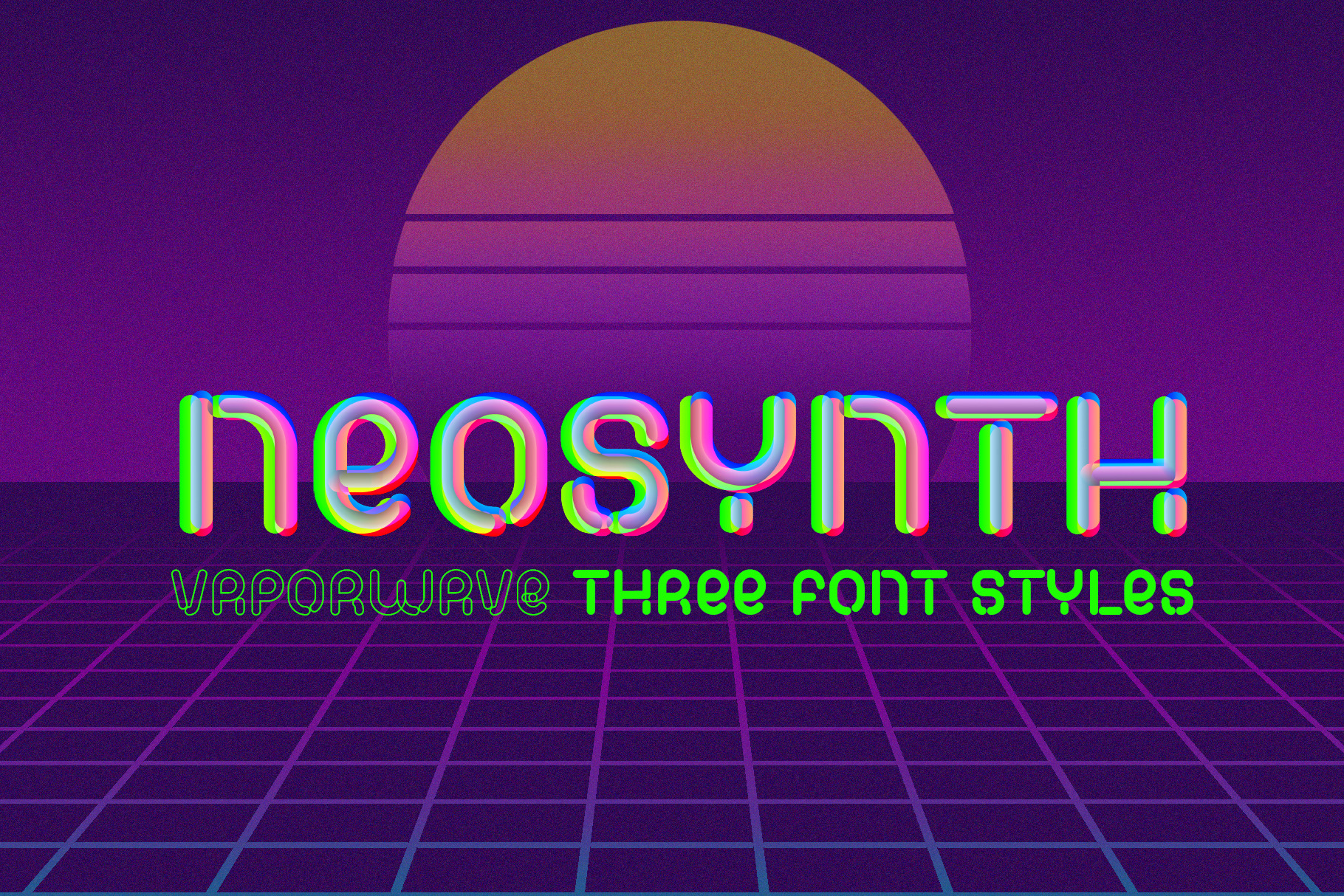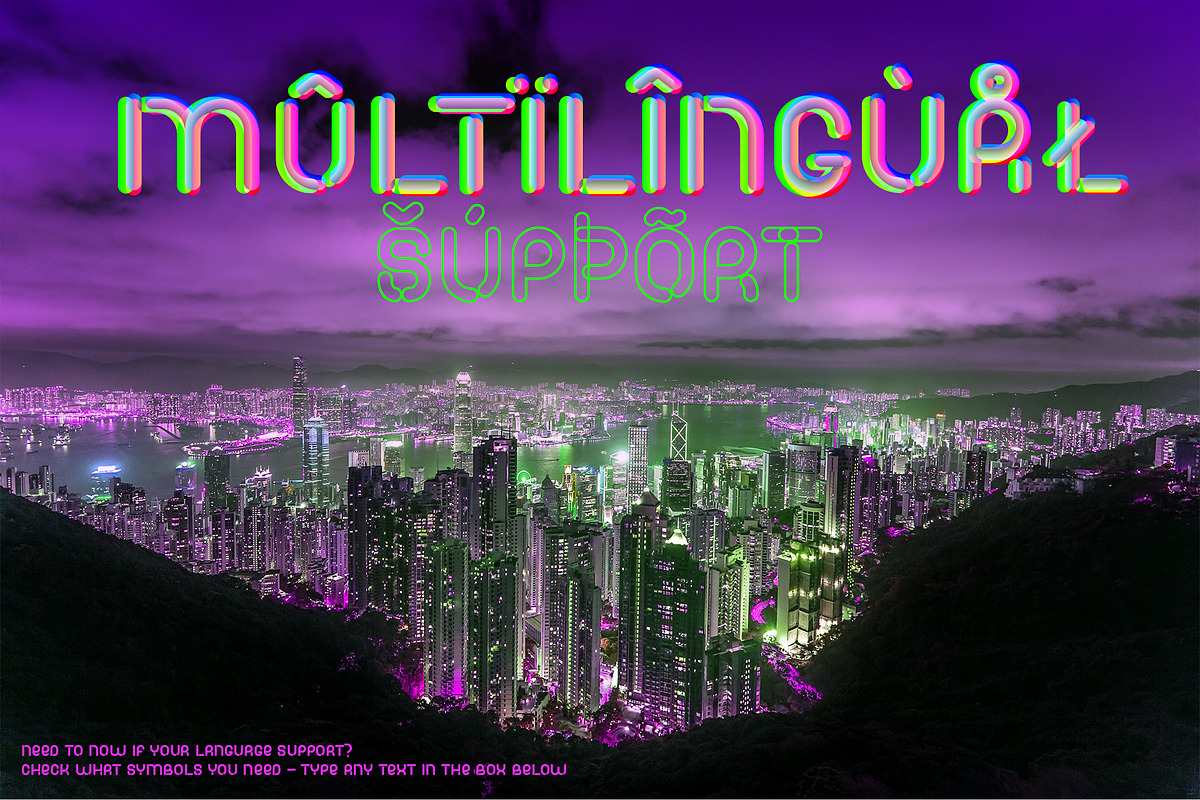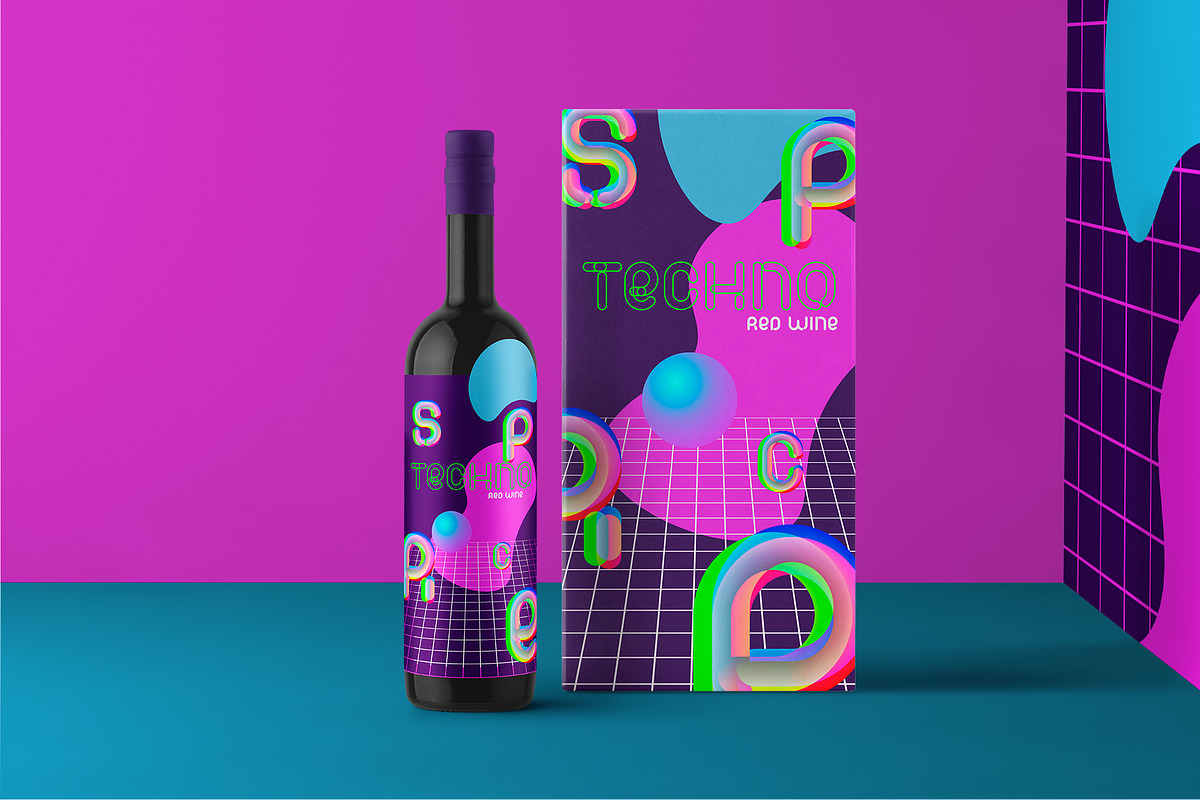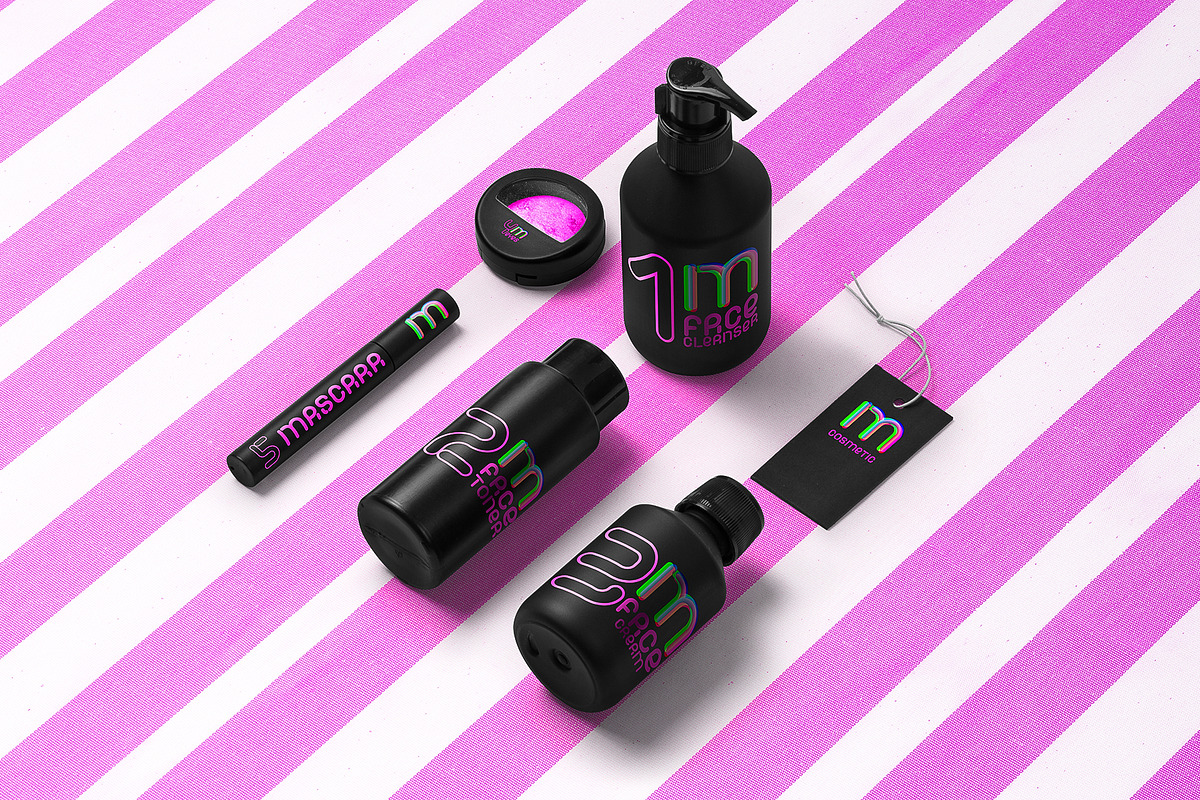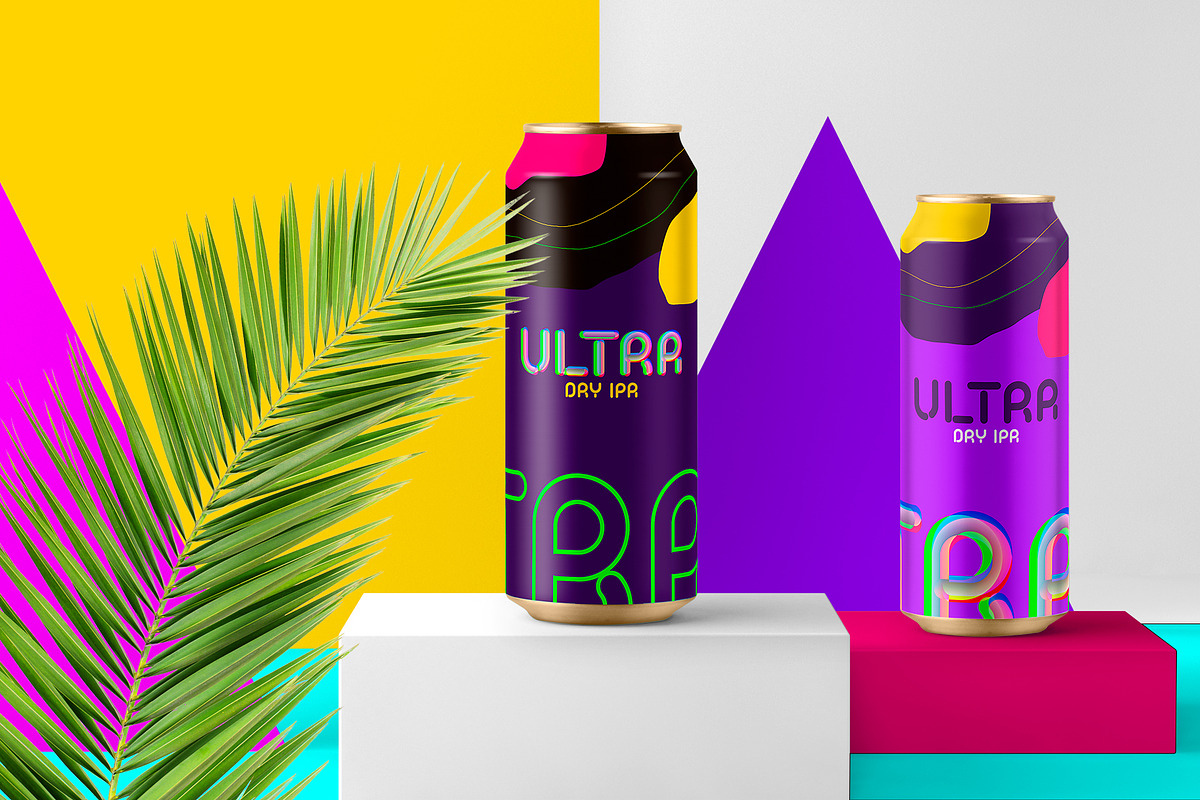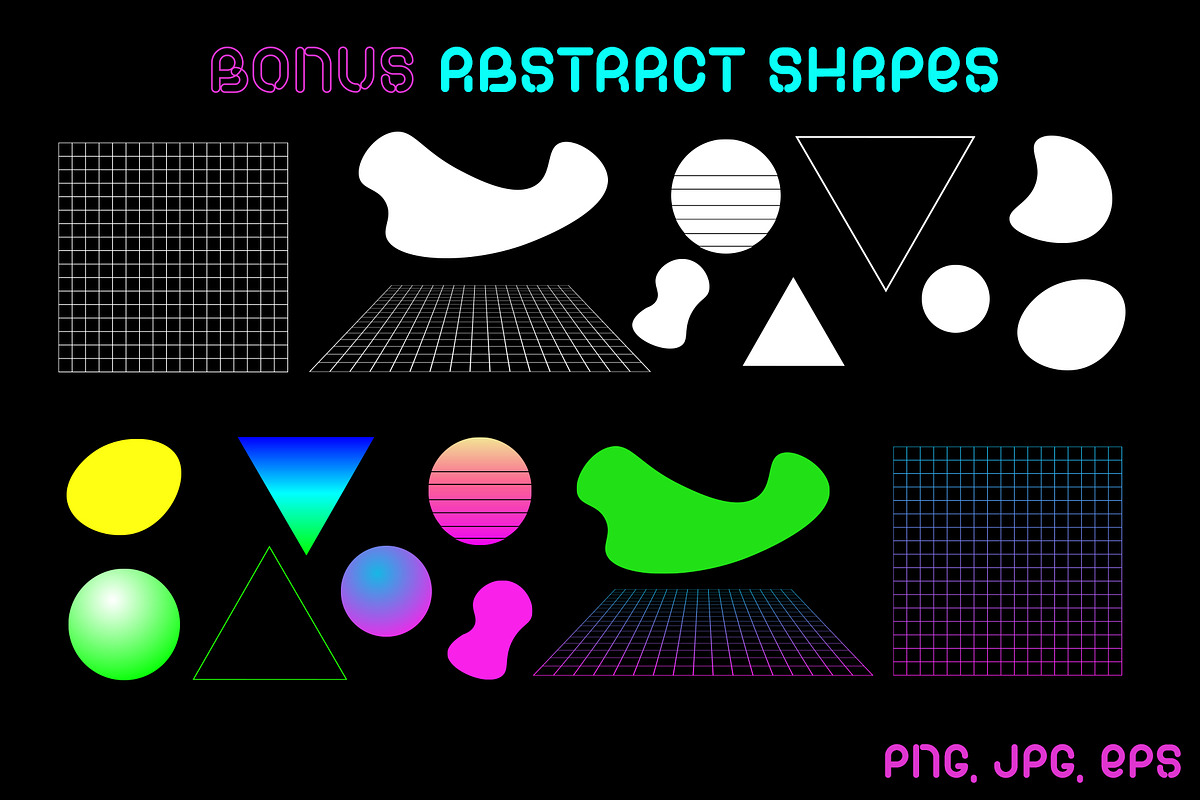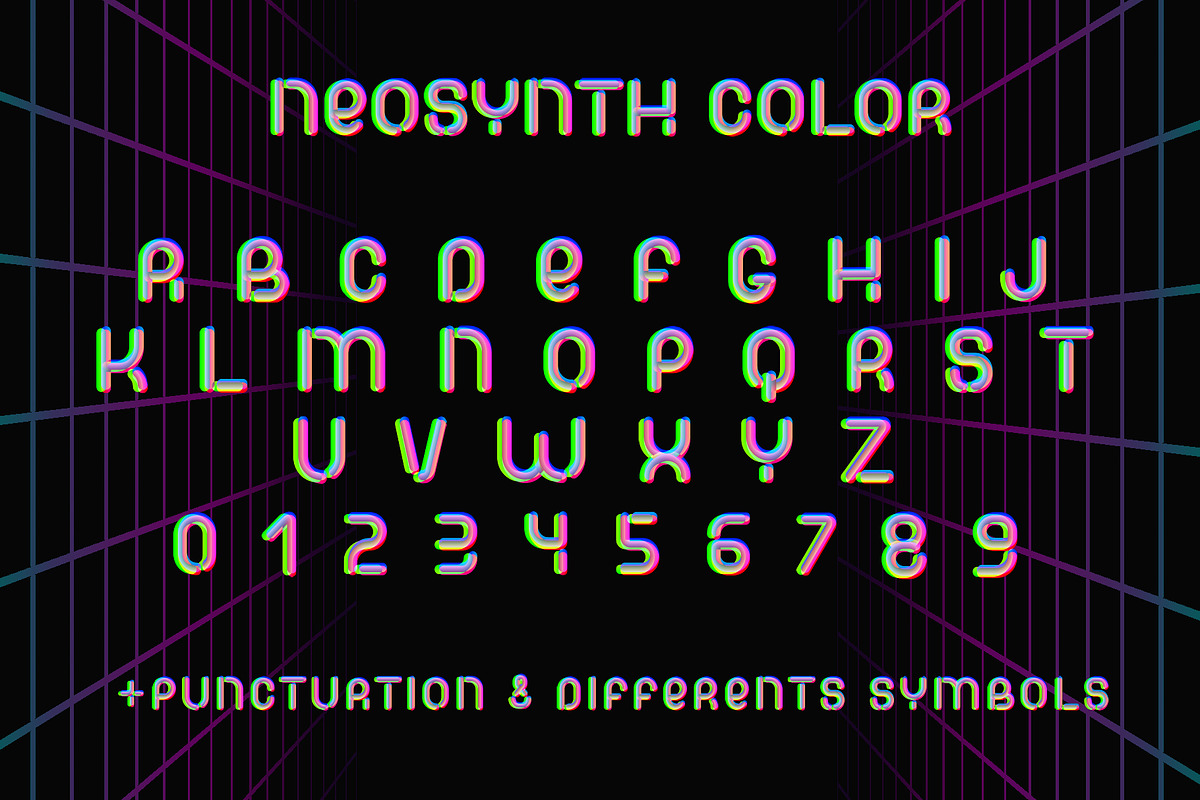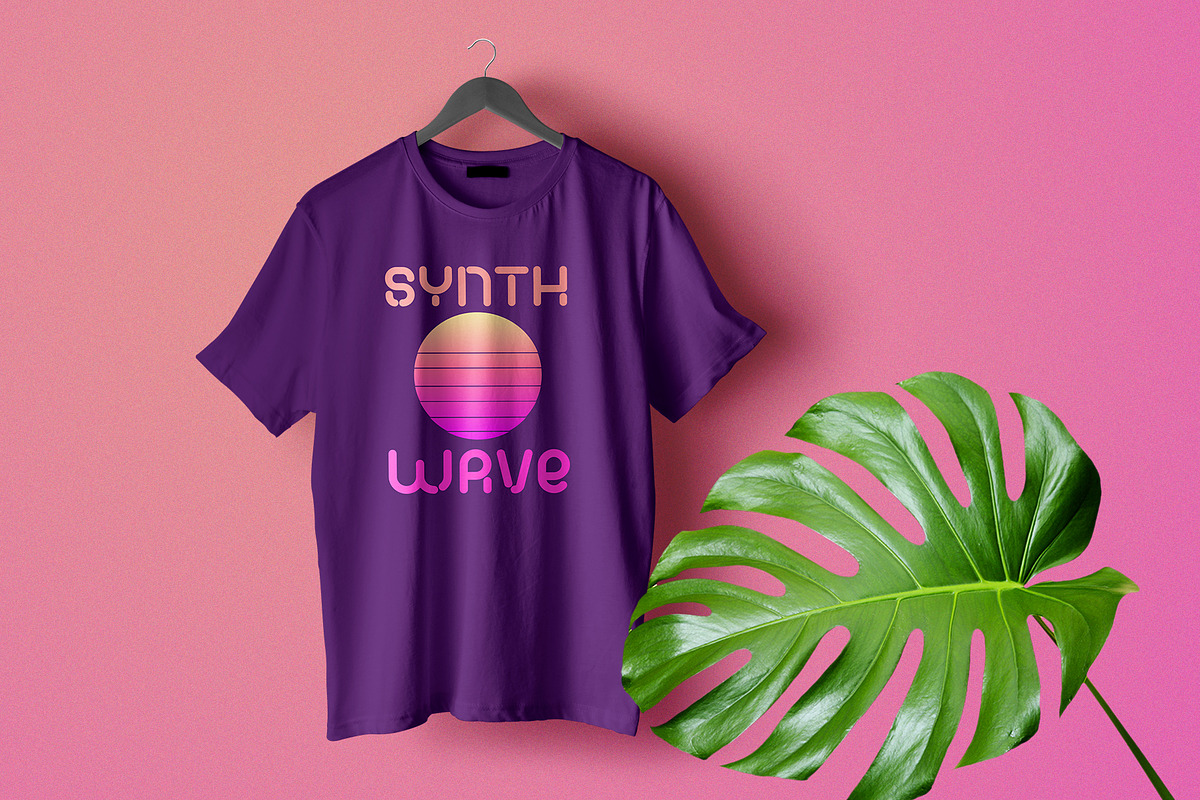
NeoSynth | Vaporwave Font Styles
Let me introduce my new trendy product - NEOSYNTH font. I inspired Vaporwave, Synthwave, Retrowave culture and Lo-Fi aesthetic with it neon synthetic color and blending color channel. It really Millennial Nostalgia Font. Trend of Spring 2021.
This font looks great on neon cloth prints and different packaging of product - from craft beer to luxury cosmetic. It look great in invitations and flyers of futuristic music party. I added some abstract shapes, it will help you to create fantastic design with my font. Also each letter or it combinations can be used as trendy modern logo or monogram.